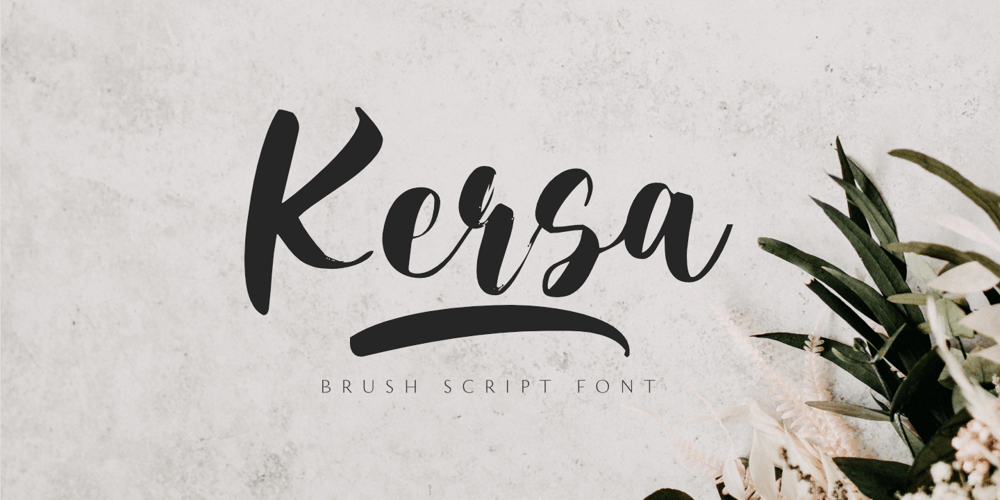
Kersa
Kersa font
Kersa Font Family was designed by Aldy Sidik, Nurul Hidayani and published by Olivetype. Kersa contains 1 styles and family package options. Kersa is a stylish handwritten brush font. It is a nice choice for creating eye-catching logos, branding, and quotes. It has beautiful and well-balanced characters and as a result, it matches a wide pool of designs. Add it to your most creative ideas and notice how it makes them come alive!You’ll get : Basic Latin A-Z & a-z. Numbers, symbols, and punctuations Swashes & Ligatures Multilingual Support. Accented Characters : ÀÁÂÃÄÅÆÇÈÉÊËÌÍÎÏÑÒÓÔÕÖØŒŠÙÚÛÜŸÝŽàáâãäåæçèéêëìíîïñòóôõöøœšùúûüýÿžß Thank You.